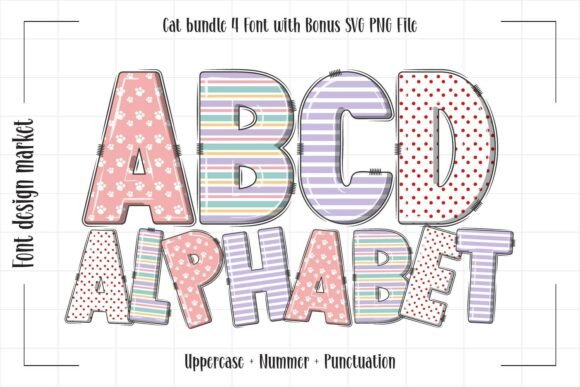
Cat Font: The Purrfect Addition to Your Design Projects
Are you looking for a font that can add a touch of whimsy and charm to your design projects? Look no further than the Cat Font! This amazing and fresh color font is sure to delight with its adorable cute cat theme, making it the perfect choice for designers who want to create stand-out designs.
What Makes Cat Font So Special?
Cat Font is not just any ordinary font. Its charming personality and cute cat theme make it a unique addition to any design project. Whether you’re creating a logo, a poster, or a social media graphic, this font is sure to grab attention and leave a lasting impression.
One of the best things about Cat Font is its versatility. It can be used in a variety of design projects, from fun and playful to more serious and professional. The font is available in both black and color versions, making it easy to choose the one that best suits your needs.
Design Tips: How to Use Cat Font to Create Stand-Out Designs
So, how can you use Cat Font to create stand-out designs? Here are a few tips to get you started:
- Use Cat Font as a headline font to grab attention and add visual interest to your design.
- Pair Cat Font with a simpler font to create contrast and add depth to your design.
- Experiment with different colors and textures to add an extra layer of visual interest to your design.
- Use Cat Font to create custom graphics, such as logos, icons, or social media graphics.
The possibilities are endless, and with Cat Font, you’re sure to create designs that are both fun and effective.
Why Choose Cat Font?
So, why choose Cat Font over other fonts? Here are just a few reasons:
- Unique and charming personality that will add a touch of whimsy to your designs.
- Versatile and can be used in a variety of design projects.
- Available in both black and color versions to suit your needs.
Whether you’re a designer, crafter, or maker, Cat Font is the perfect choice for anyone looking to add a little fun and personality to their designs.
In conclusion, Cat Font is an amazing and fresh color font that is sure to delight with its adorable cute cat theme. With its charming personality and versatility, it’s the perfect choice for designers who want to create stand-out designs.